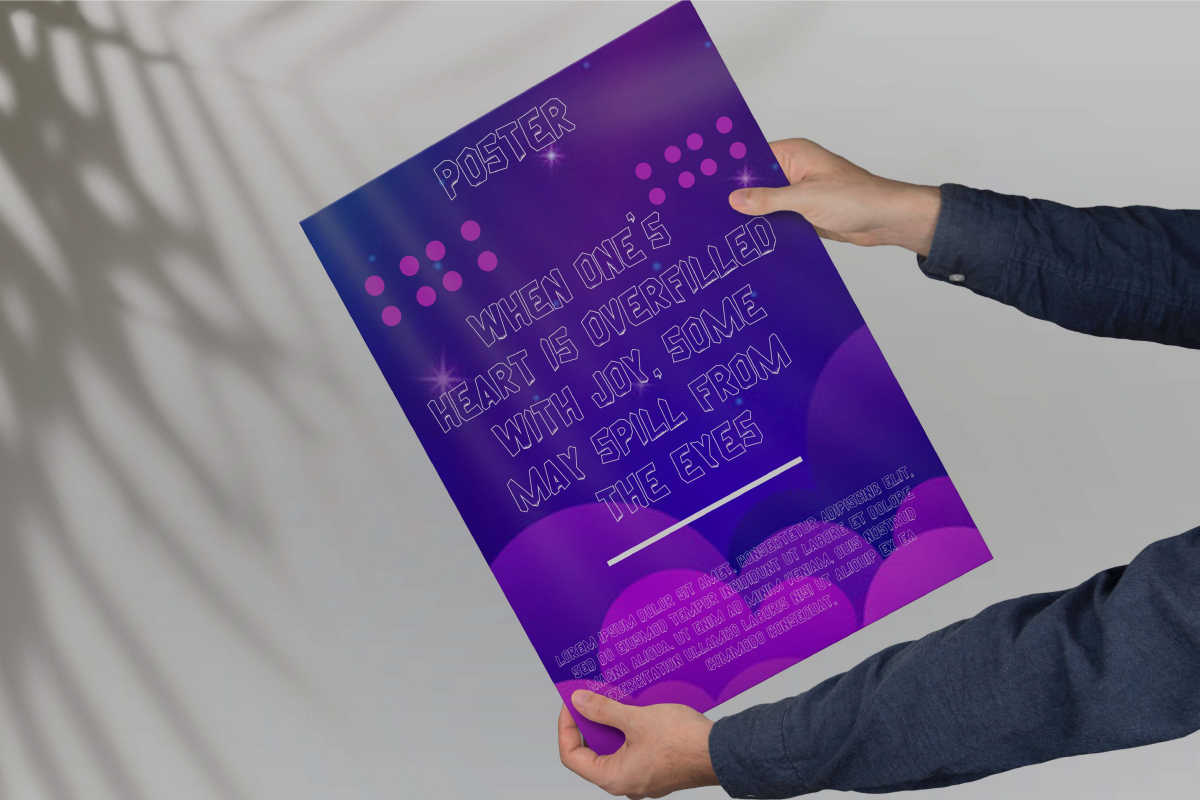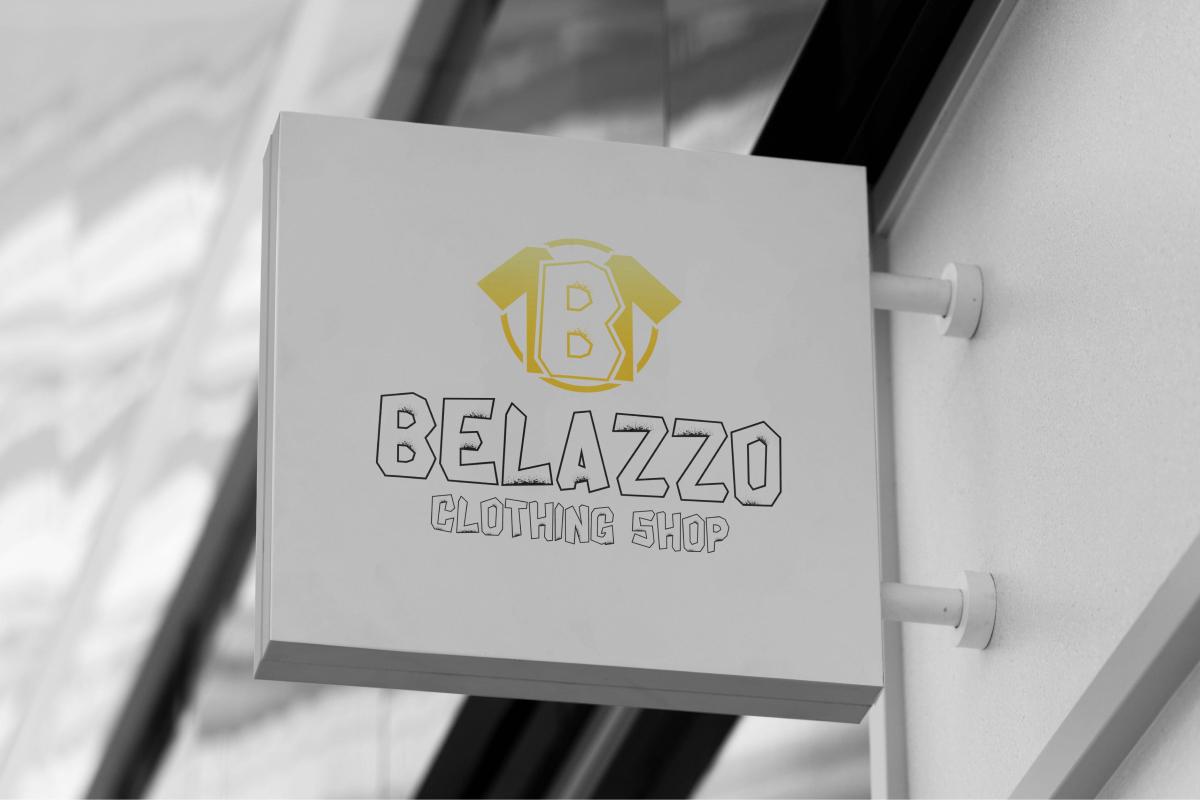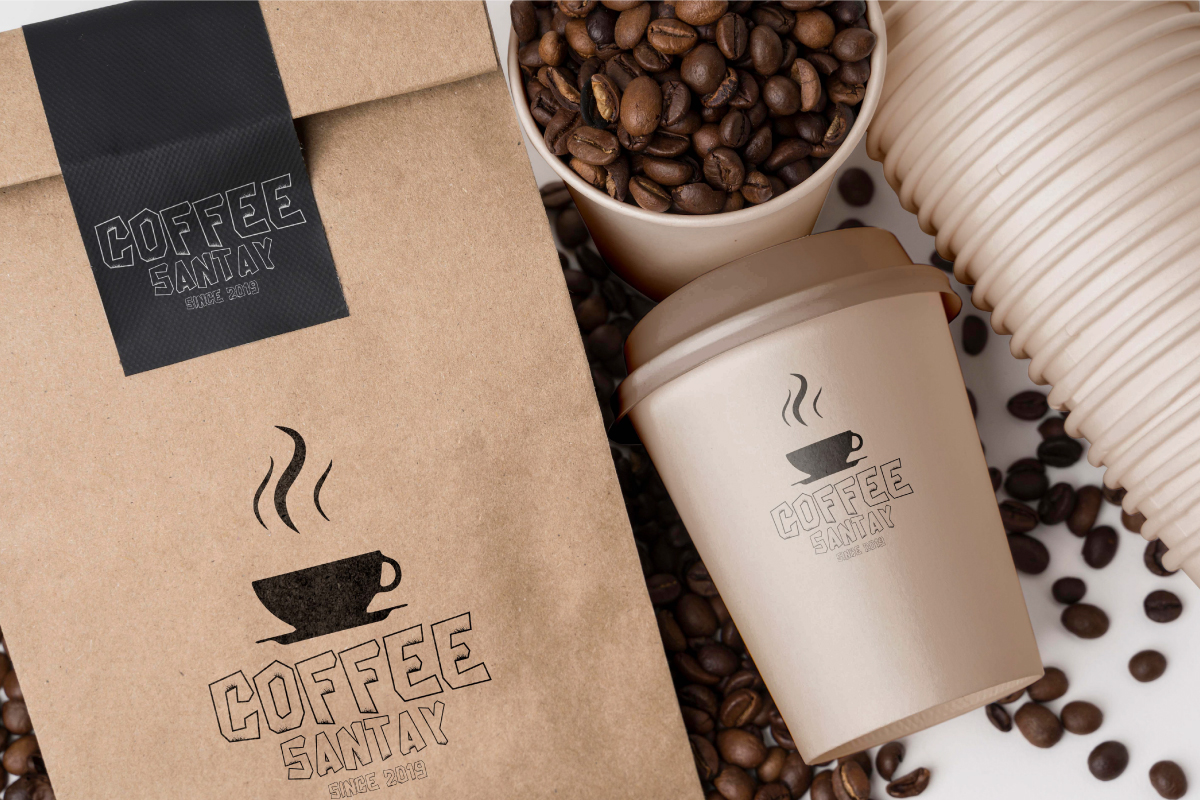
Silly Fun Font
Silly Fun Display Font
This is cute playful cartoon display font with unique style inspired stone age on its letters. This font has a distinctive style with splashes of paint on each letter while easily to read. It will be perfect for industry such as cartoon, comic, fashion, food or beverage brands, game, movie, and more.